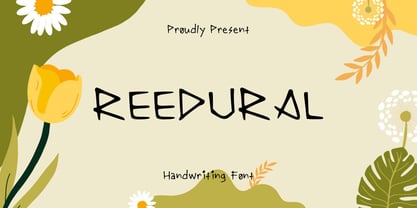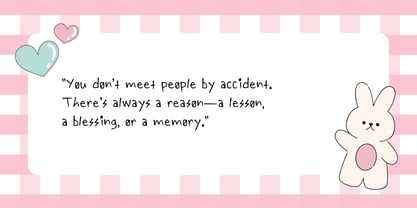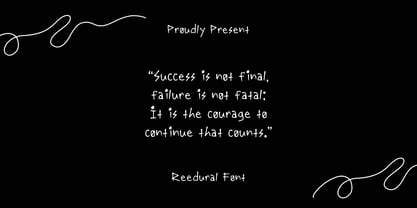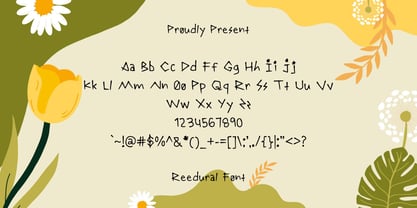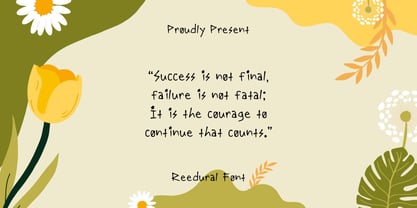
Reedural
by Sidkia Fonts
The Reedural Font Family was designed by and published by Sidkia Fonts. Reedural contains 1 styles. More about this family
Reedural is a fun and charming handwritten font with a quirky, whimsical vibe that instantly catches the eye. Its naturally uneven strokes and adorable star-like dots create a lively, sparkling effect that makes every word stand out. Perfect for inspirational quotes, greeting cards, invitations, creative posters, social media graphics, or branding projects that need a warm, friendly, and playful touch full of personality and charm.
Foundry: Sidkia Fonts